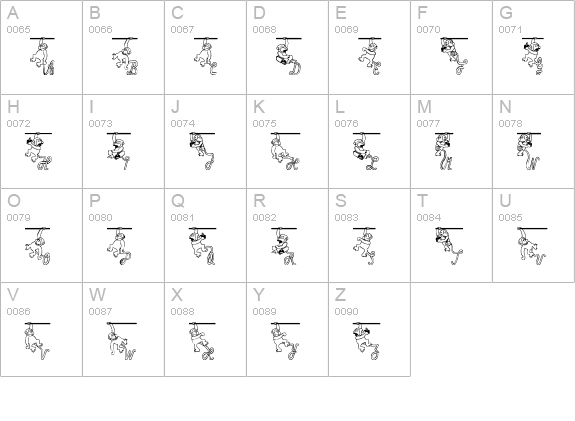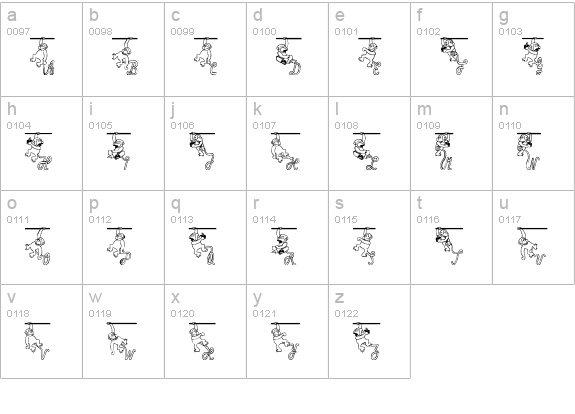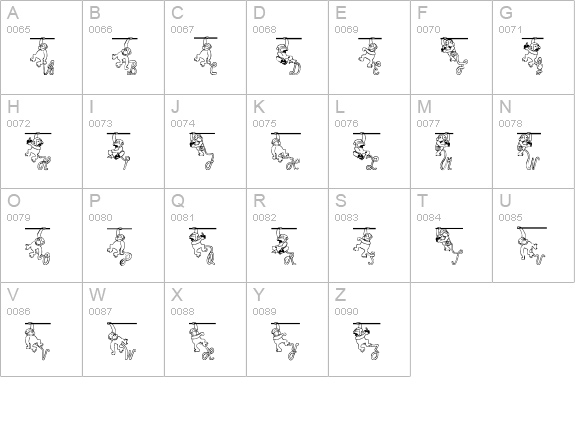
Affenschaukel Font Details
Affenschaukel font is a whimsical and playful typeface that is sure to add a touch of fun to any project. With its quirky curves and unique character shapes, Affenschaukel exudes a sense of creativity and originality. Whether you're designing a poster, logo, or greeting card, this font is sure to make a statement. The best part? Affenschaukel is available for free download at FontsMarket.com, making it accessible to designers of all levels. Don't miss out on the opportunity to add this charming font to your collection and bring a touch of personality to your next design project.